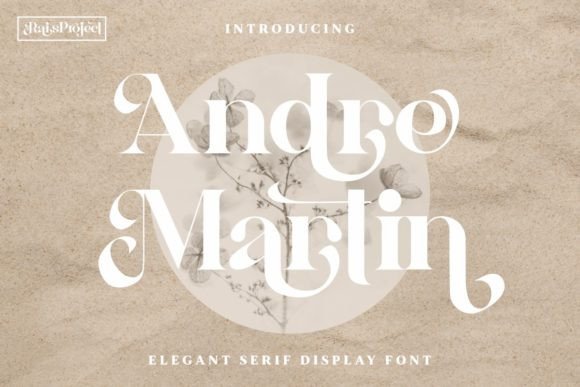
The Elegant Andre Martin Font: A Designer’s New Best Friend
I’ll never forget the time I was working on a branding project for a luxury perfume client. I had spent hours agonizing over the perfect logo design, but something was missing. The font I had chosen just wasn’t elevating the design to the level I knew it could be. That’s when I stumbled upon the Andre Martin Font. With its elegant serif lines and beautiful flower petal-like curves, it was the perfect fit. In this article, I’ll share my experience with this stunning font, its features, and how to make the most of it in your designs.
An Honest Review of Andre Martin Font
• ✨ Elegant serif display font perfect for high-end branding
• ✅ Beautiful flower petal-like curves in each letter
• 💫 Perfect for boutiques, business cards, cosmetics, jewelry, logo branding, magazine covers, perfumes, and more!
• 🎨 Highly versatile and can be used in a variety of design contexts
While Andre Martin Font is an exceptional font, there are a few things to keep in mind:
• ⚠️ May not be suitable for body text due to its elegant, display nature
• 🤔 Limited availability of certain OpenType features in some software
The Backstory of Andre Martin Font
Andre Martin Font was designed with the intention of creating a luxurious, high-end font that would elevate branding and editorial design. The designer aimed to craft a font that would exude elegance and sophistication, while still being versatile and easy to use.
Q: What is the best use for Andre Martin Font?
A: Andre Martin Font is perfect for high-end branding, editorial design, and luxury packaging. It’s ideal for boutiques, business cards, cosmetics, jewelry, logo branding, magazine covers, perfumes, and more!
Q: Can I use Andre Martin Font for body text?
A: While Andre Martin Font is an exceptional font, it’s primarily designed for display use. It may not be suitable for body text due to its elegant, refined nature.
Q: Does Andre Martin Font have OpenType features?
A: Yes, Andre Martin Font features a range of OpenType features, including stylistic alternates, swashes, and more. These features can be accessed in compatible software, such as Adobe Creative Cloud.